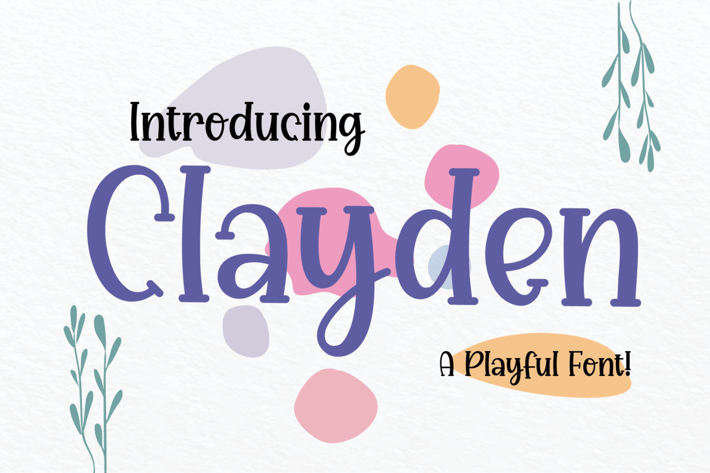
If you’re after a font for a birthday party invitation or a children’s book cover, you shouldn’t settle for something bland and generic. Instead, why not aim for a fun and lively option to set the mood?
Introducing Clayden - A Playful Font.
Multilingual & Ligature Support
Full sets of Punctuation and Numerals